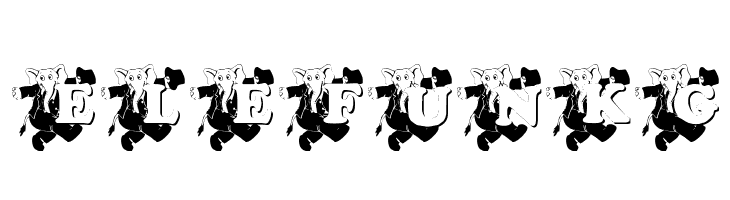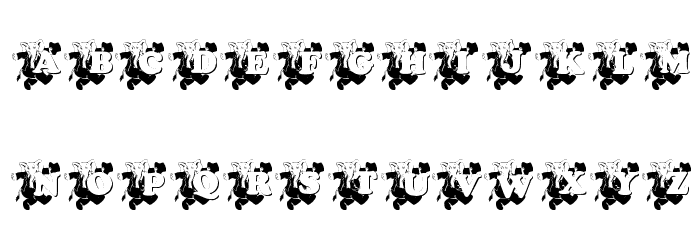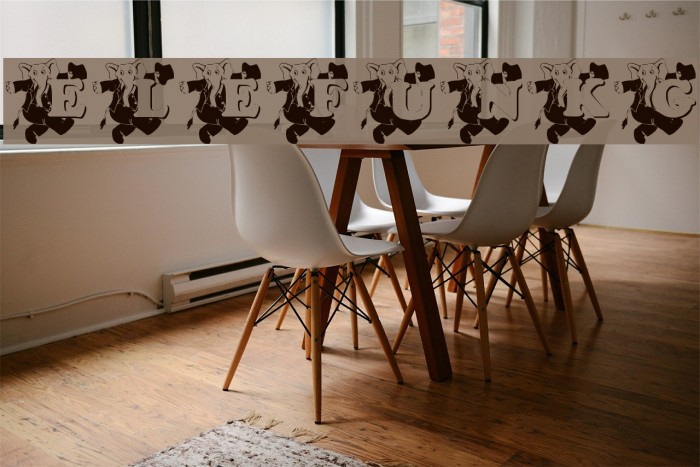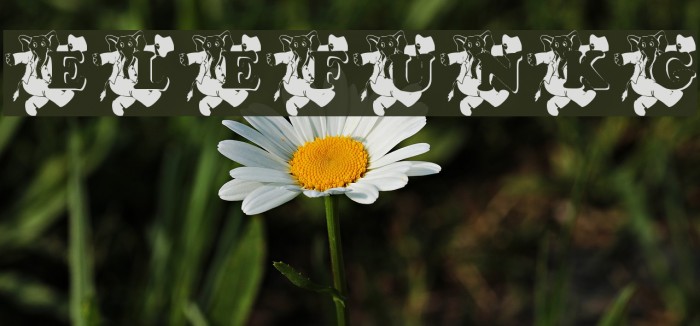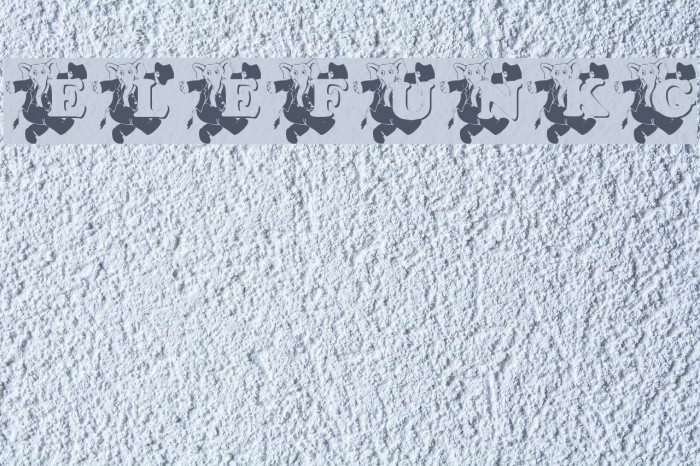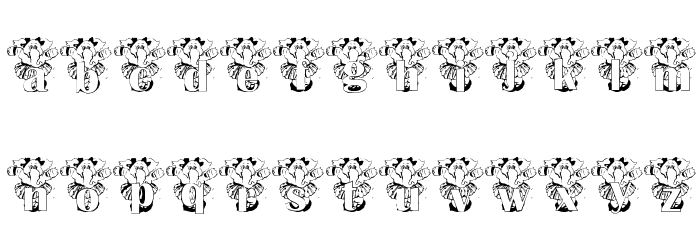
ELEFUN_KG Font
ELEFUN_KG Description
This font features a playful and whimsical design, incorporating elements that resemble cartoon elephants within each character. The letters are bold and decorative, with intricate patterns and shapes that create a lively and engaging appearance. The uppercase and lowercase letters maintain a consistent style, ensuring a cohesive look across different text elements. The numbers and special characters are equally detailed, making this font suitable for creative and fun projects. Its unique style captures attention and adds a touch of humor and creativity to any design.
A playful, elephant-themed decorative font with intricate details from Uncategorized fonts.
- Proposed Projects: Ideal for children's books, playful branding, party invitations, and creative posters.
- Overall Style: Playful, Whimsical, Decorative